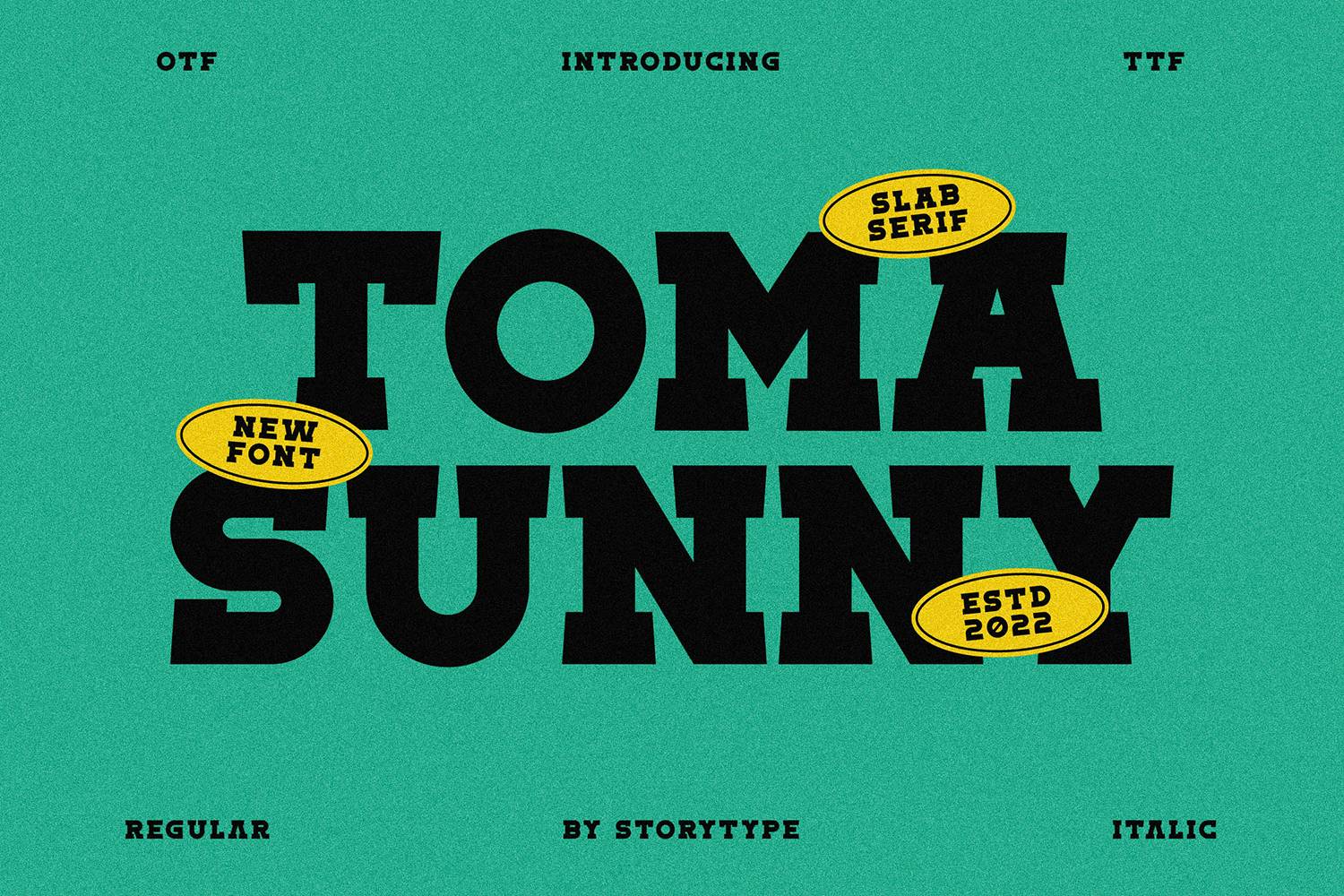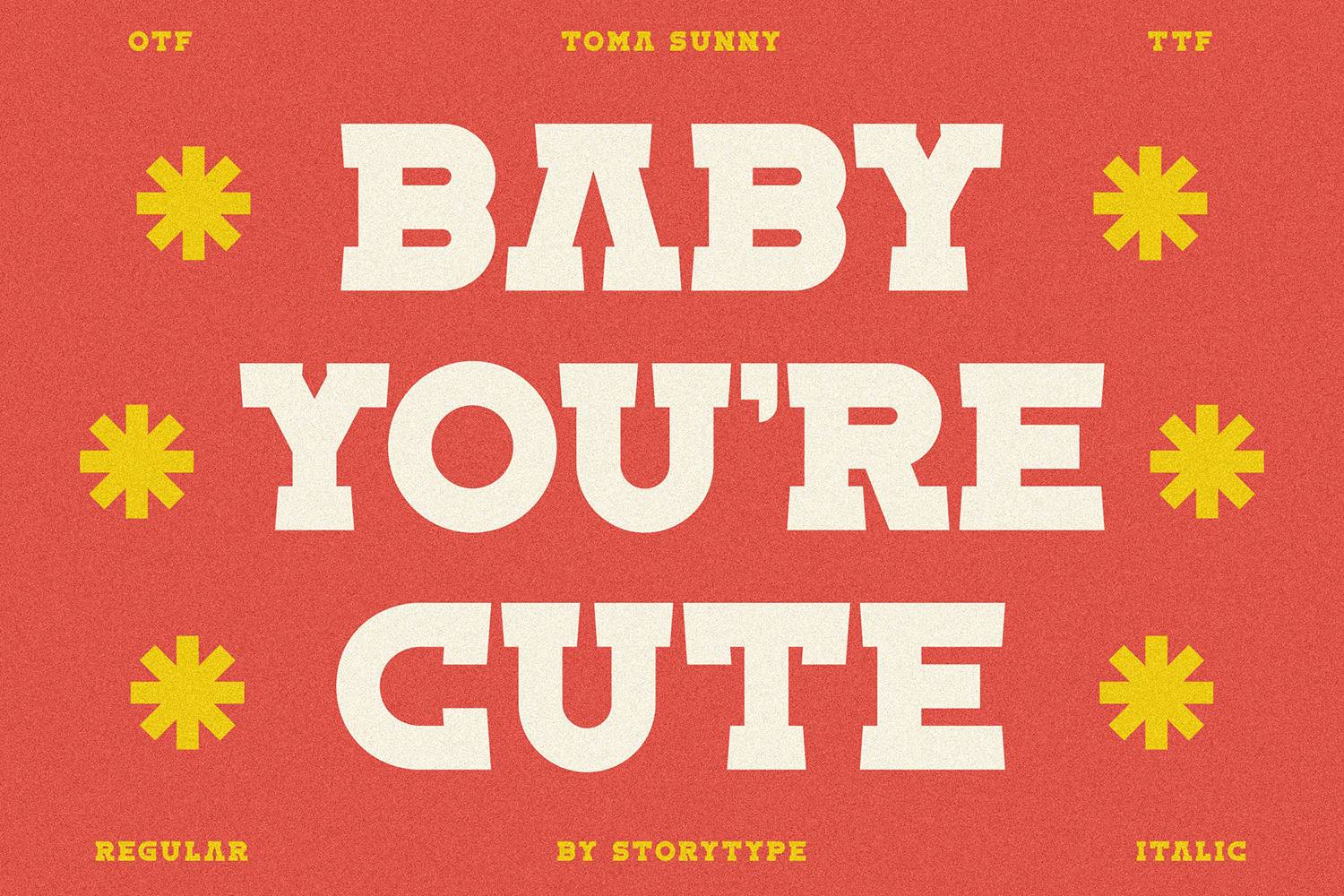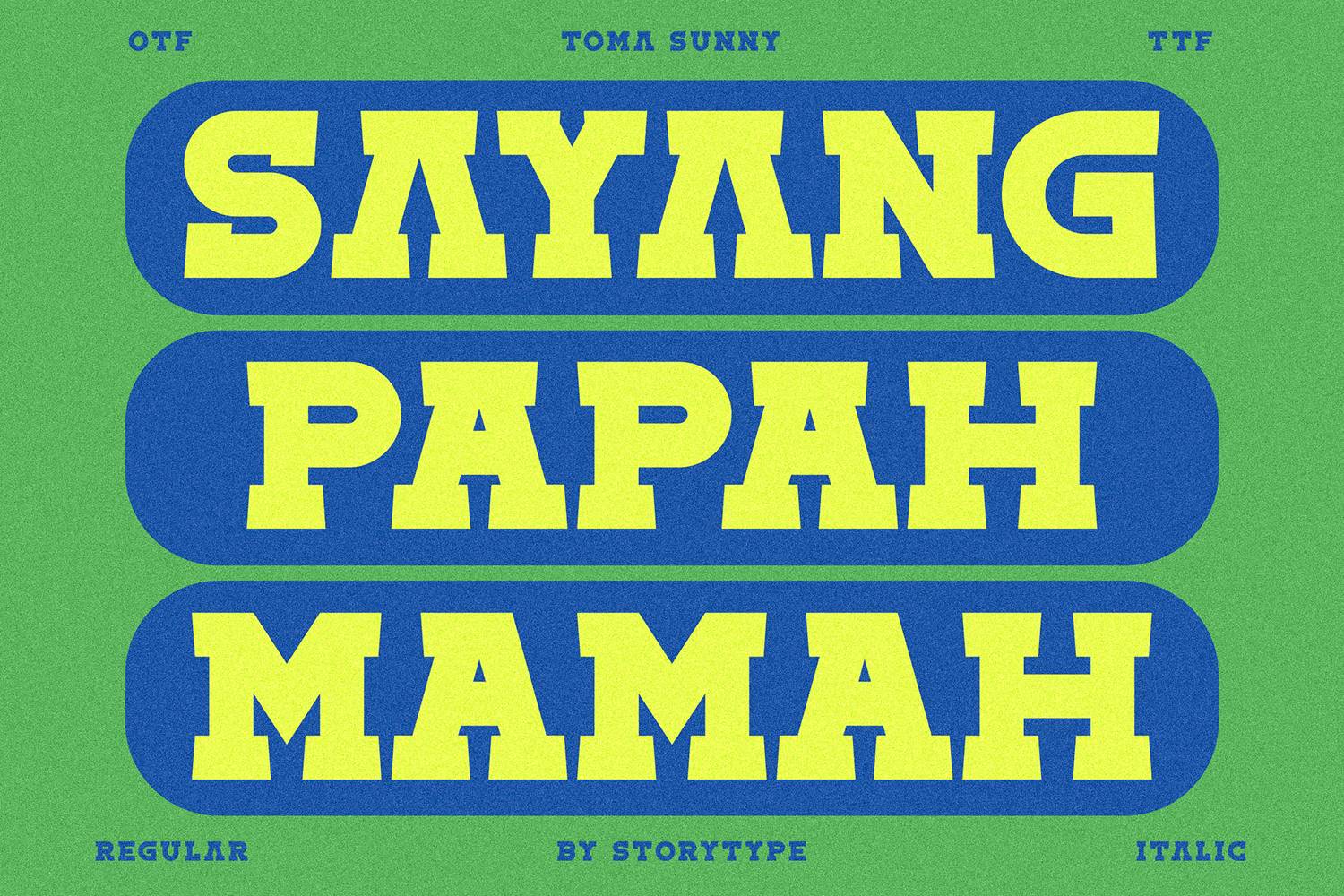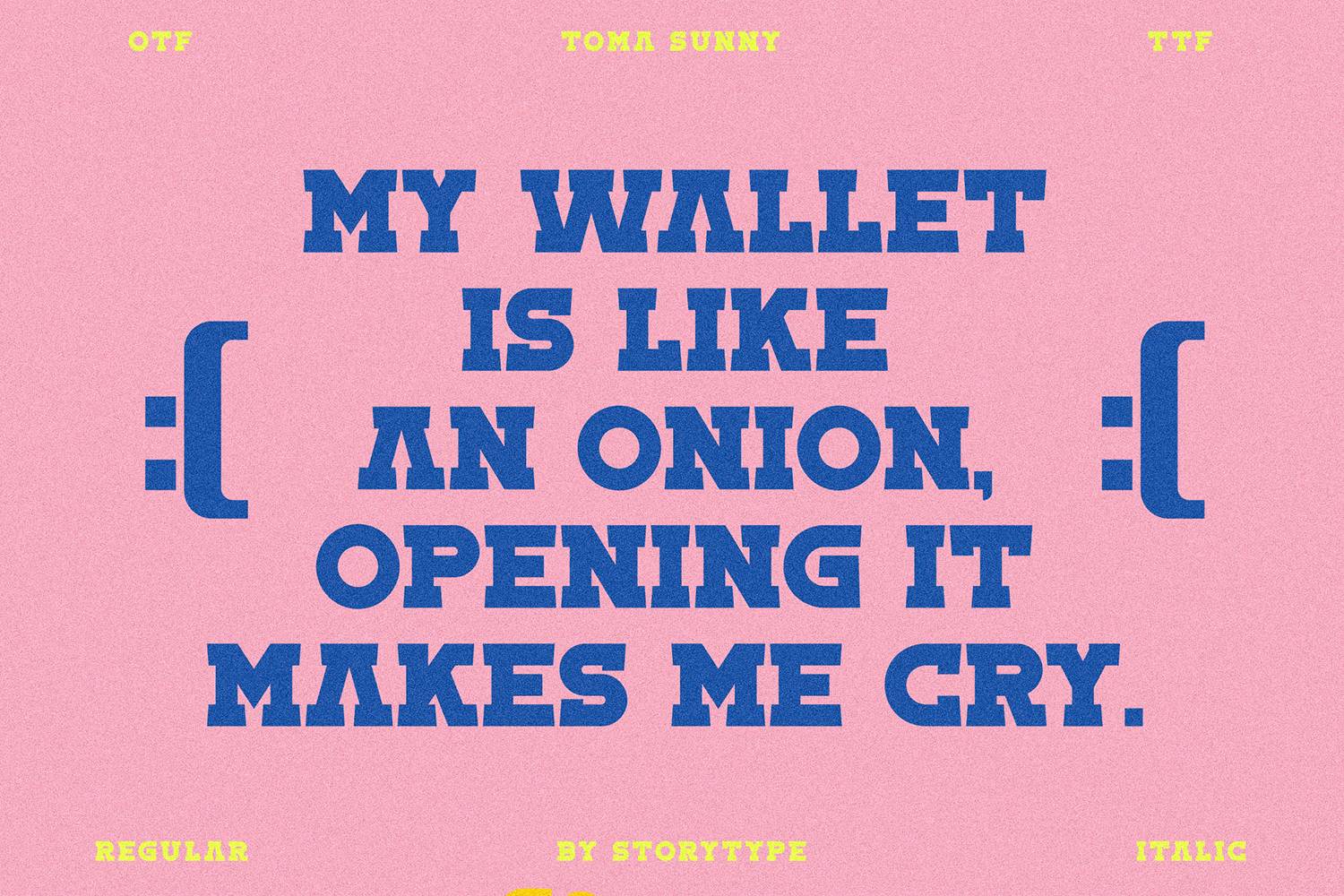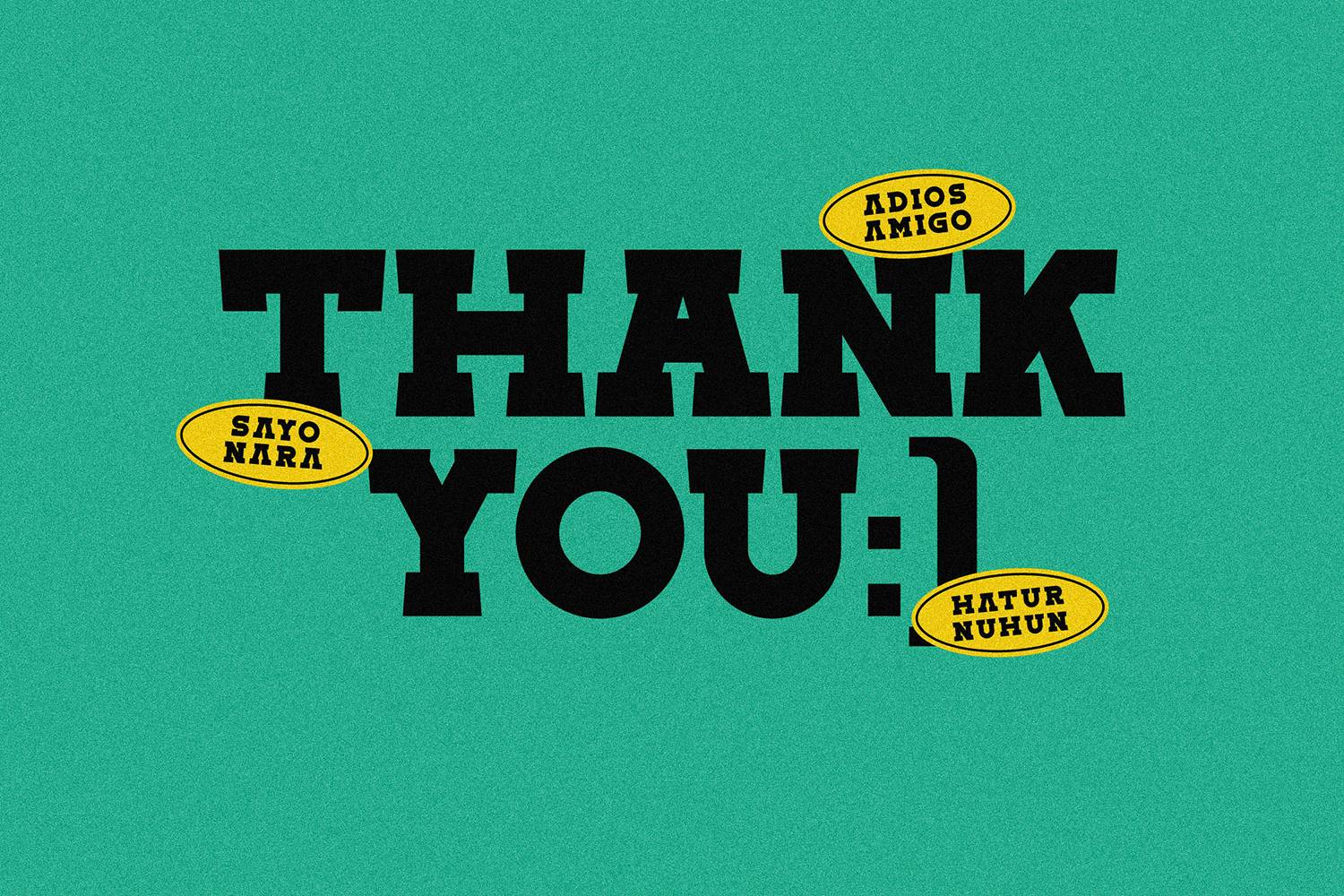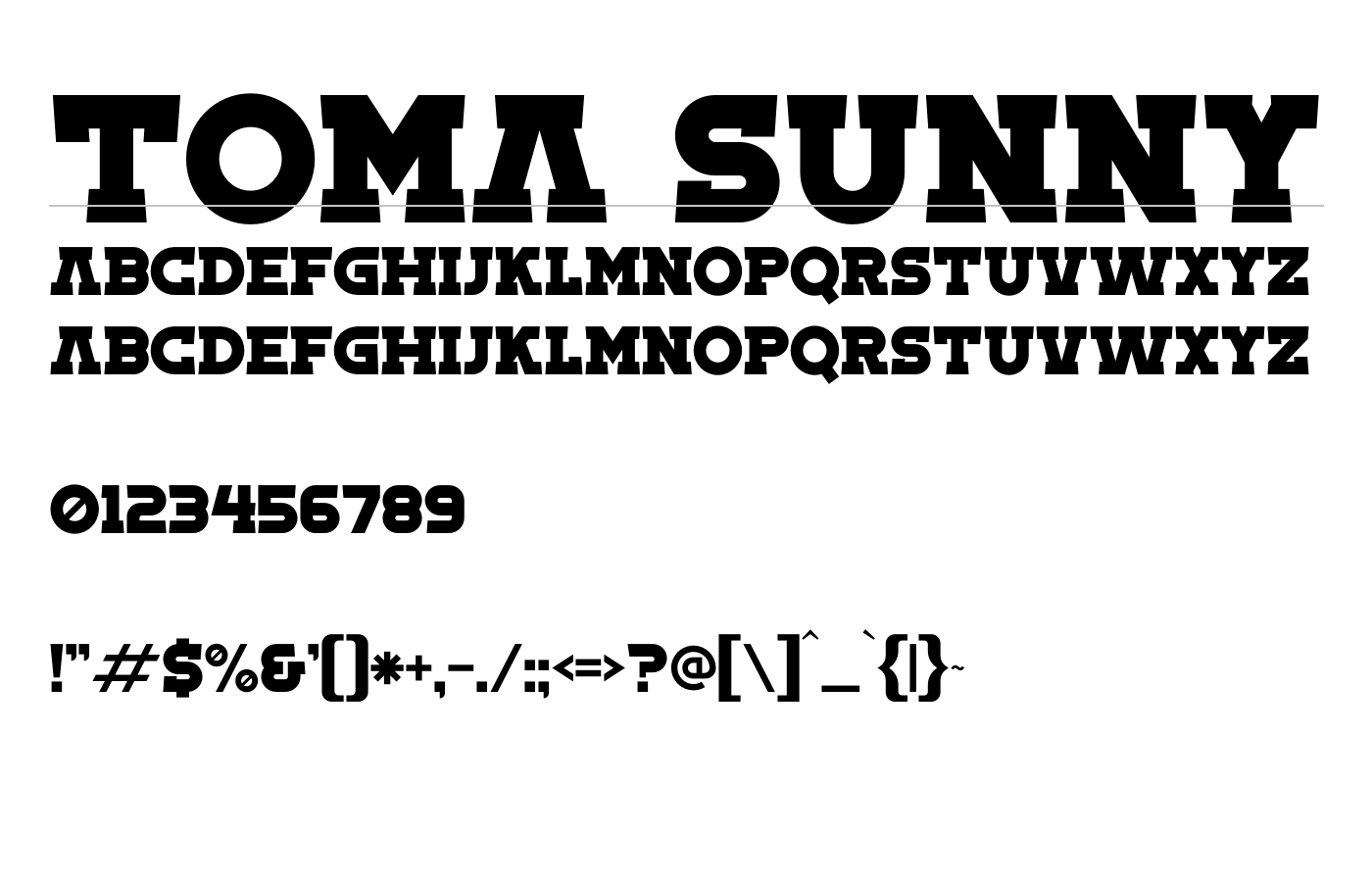
Toma Sunny is a bold, slab serif font with a strong presence, featuring thick, blocky serifs and high contrast strokes that create a powerful, sturdy look. Its clean, geometric shapes combined with unique letter details give it a playful yet authoritative feel, making it ideal for eye-catching headlines, logos, and branding that need to convey confidence and impact. This font works especially well in contexts where boldness and clarity are essential, such as posters, packaging, and editorial design.
Toma Sunny Font
About Toma Sunny Font